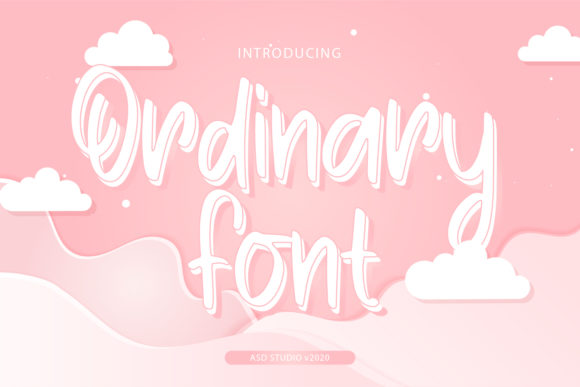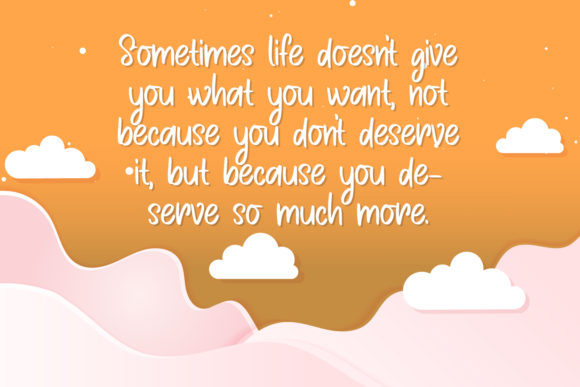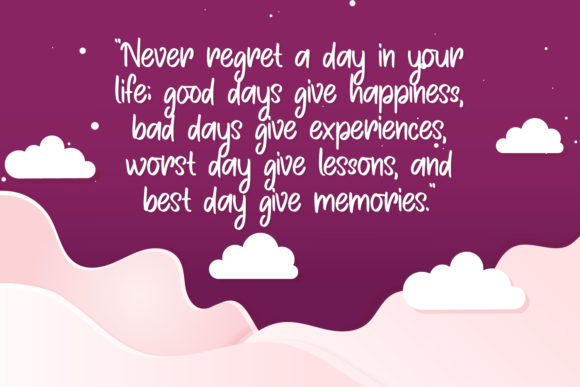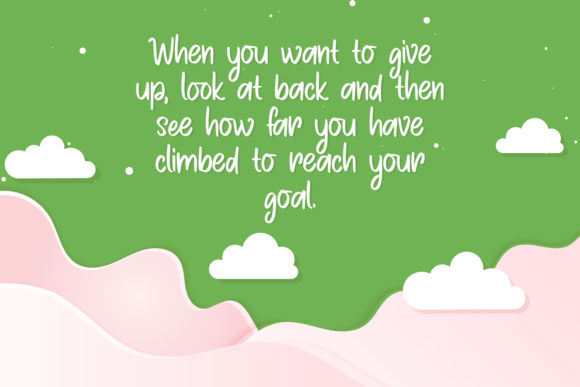
Ordinary Font
About Ordinary Font
Ordinary is everything but an ordinary font! Clean and a little bit quirky, this font is the perfect fit for all of your logos, branding, social media, and crafty DIY projects.